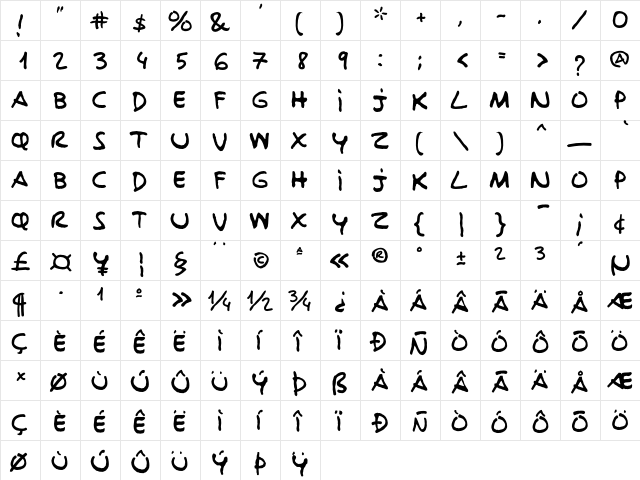
Iva Regular
Design Context for Iva Typeface
Iva is a composed and adaptable typeface that performs quietly and consistently across a wide range of design contexts.